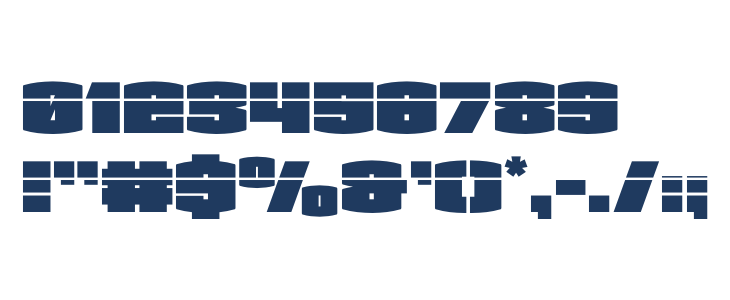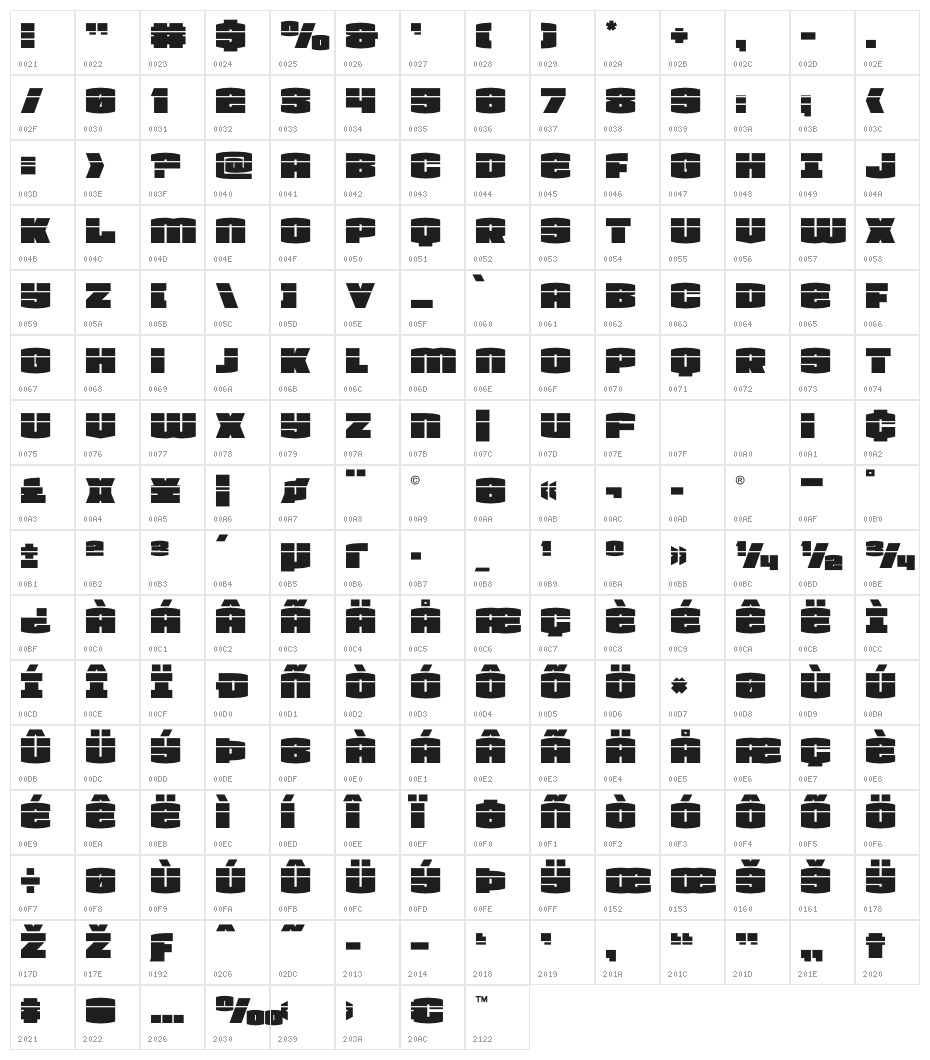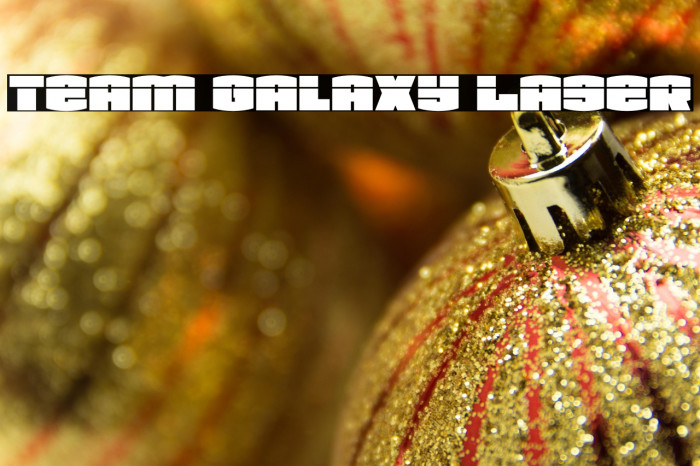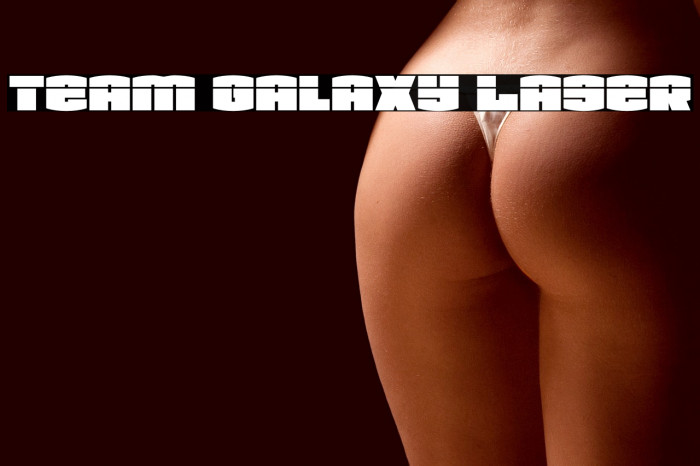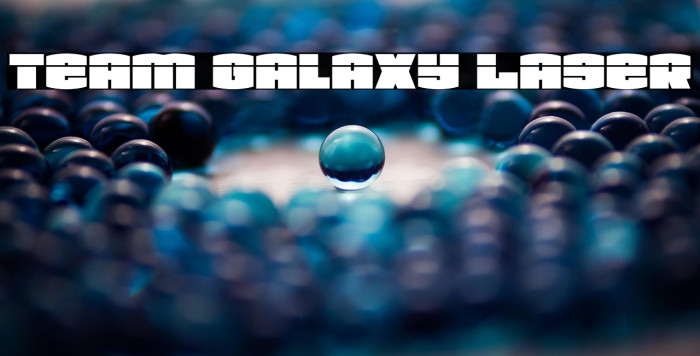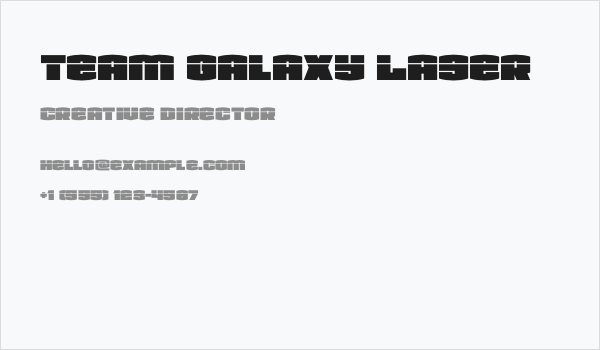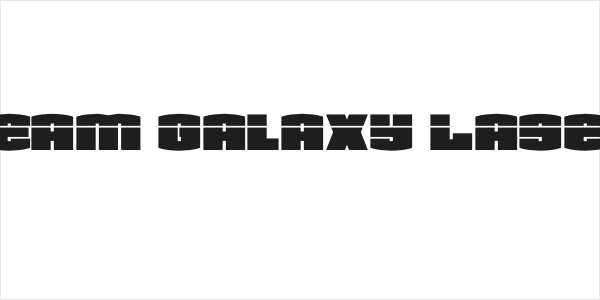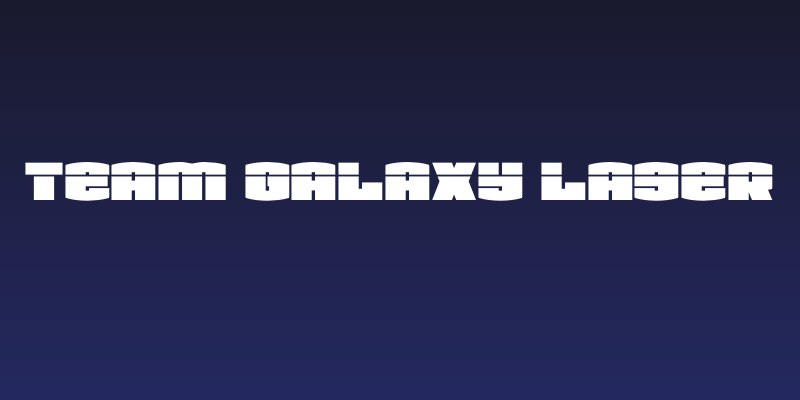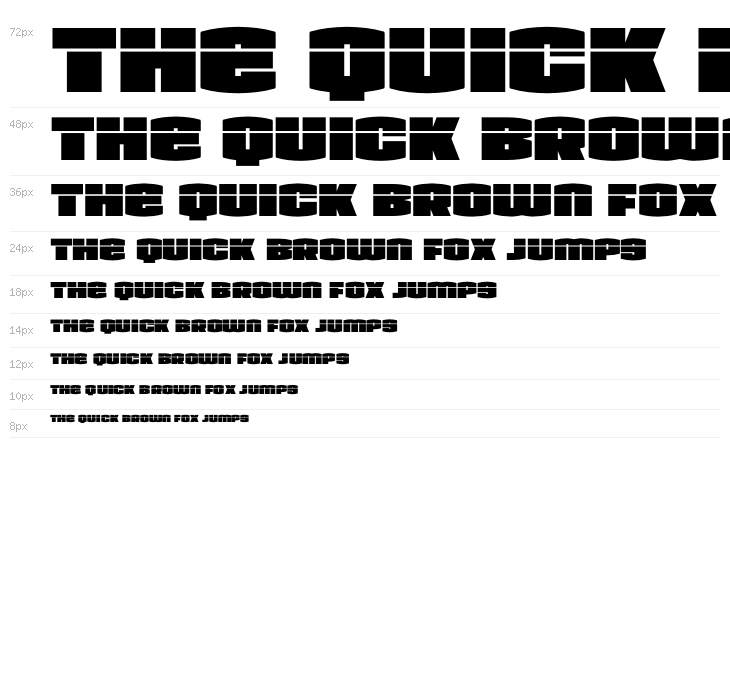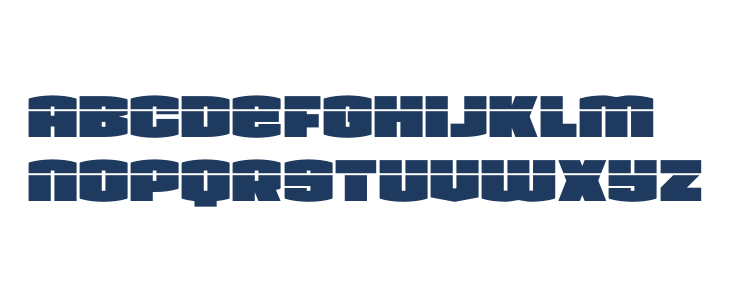
Team Galaxy Laser Font
Team Galaxy Laser Description
This font features a bold, futuristic design with a strong geometric structure. The characters are wide and blocky, with a consistent thickness throughout, giving it a robust and impactful appearance. The edges are sharp, and the overall style is reminiscent of sci-fi and technology themes. The uppercase and lowercase letters maintain a uniform height, enhancing the font's cohesive look. The numerals and special characters are designed to match the boldness and geometric nature of the alphabet, making it suitable for attention-grabbing headlines and titles.
| Proposed Projects | Ideal for sci-fi movie posters, tech company logos, video game titles, and futuristic-themed branding. |